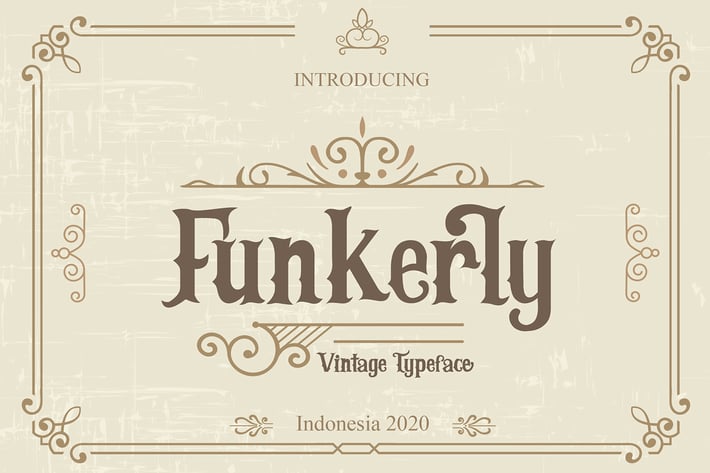
Funkerly Vintage Typeface Serif Font
Unique, playful and versatile serif family with ligatures and alternates that you can combine to get curves and beautiful shapes just in seconds.
Ligature:
Aj, Fi, jj, yj, Rj, Ti